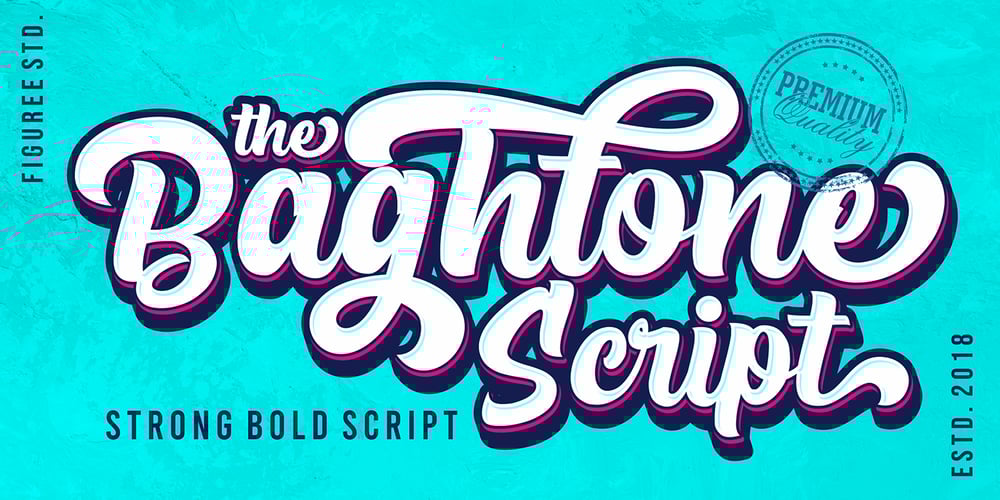
The Baghtone Script Font Family was designed by Icep Anwar Fadhil and published by Figuree Studio. The Baghtone Script contains 2 styles and family package options. Hello, This is The Baghtone Script!The Baghtone Script is a strong bold script that comes from hand scratches to get natural writing. With the main style of the hand-lettering script, it will be very interesting if it is added with a variety of Alternates and also Stylistic Sets that are very suitable. The Headlight is very suitable for use in various media such as; packaging, logos, labels, posters, shirt designs, wisdom quotes, bulletins, typography, and many other media, especially with retro or vintage look.Features: Two Style small-caps Stylistic Alternates, Stylistic Sets (SS01-SS06) and Swash variant. PUA Encoded open Support for MAC or PC Simple installation for Adobe Illustrator, Corel Draw, Photoshop, or Procreate (New Updated) Support Multilanguage That’s it! If you have any questions don’t hesitate to ask!Stay Classy! Fadhil – Figuree Studio